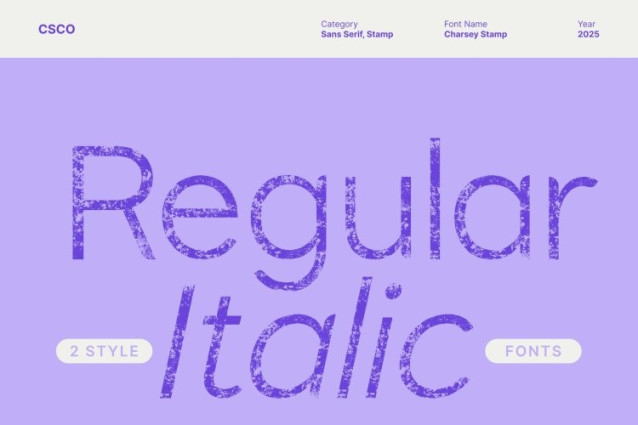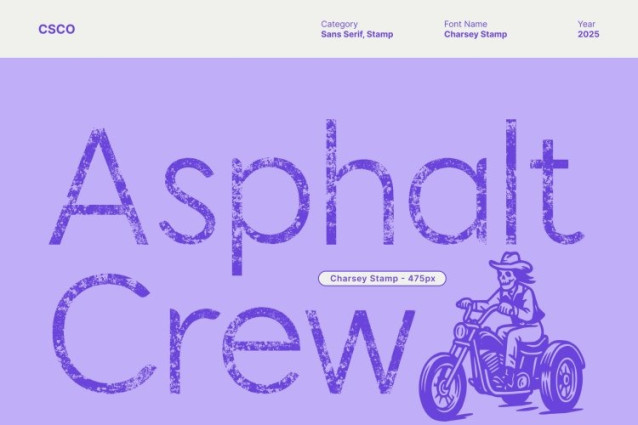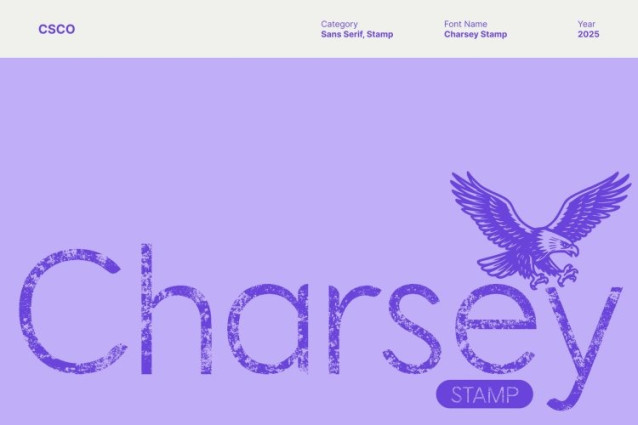
Charsey Stamp Font
Charsey Stamp Font This is a modern sans serif font built with clean lines and balanced proportions, designed to convey strength, clarity, and professionalism. Its sleek geometric forms make it highly legible and versatile, ensuring it works seamlessly across a variety of design projects. The confident structure gives your typography a bold presence while remaining approachable and stylish.
Stamp Effect for Unique Vintage Texture
Enhanced with a distinctive stamp effect, this font introduces subtle texture and handcrafted character to each letter. The irregularities and tactile feel of the stamped design add a vintage-inspired aesthetic, creating a dynamic and visually engaging display.
Ideal for Branding, Editorials, and Vintage Designs
This font excels in applications where clarity and style must meet expressive character. Perfect for logos, editorial layouts, posters, packaging, and vintage-inspired designs, the font provides a strong yet textured voice. Its clean modernity combined with stamped details allows it to adapt to both contemporary and retro-themed projects.
A Versatile Typeface with Strength and Style
By blending modern sans serif precision with handcrafted stamp texture, this font achieves a unique balance of clarity, confidence, and vintage charm. This versatile typeface is ideal for designers seeking stylish, and memorable typography that stands out across both print and digital media.